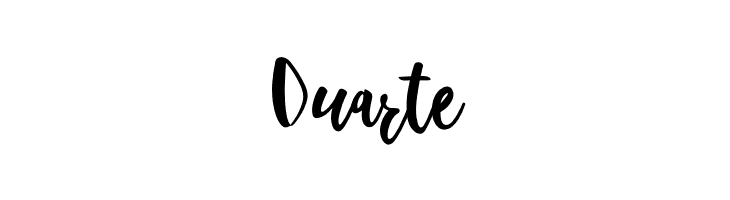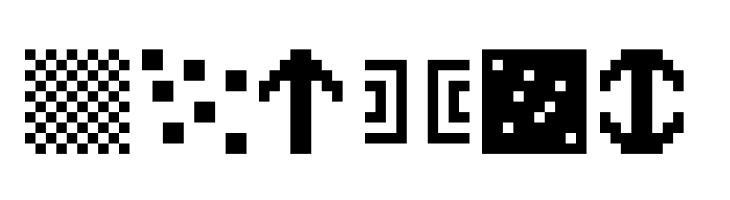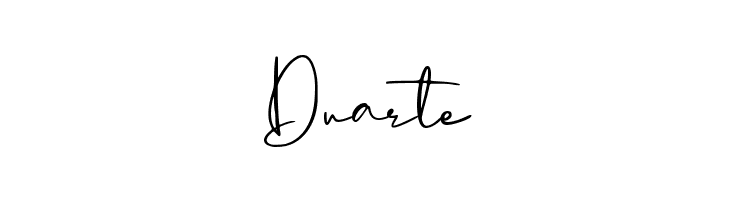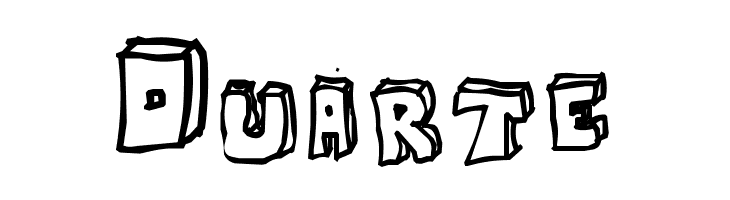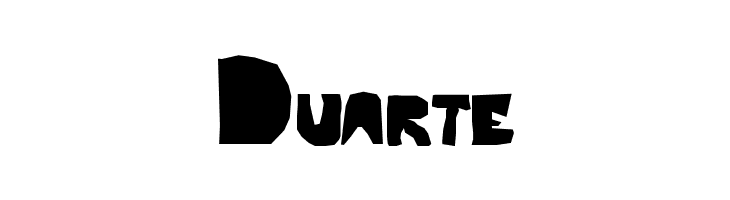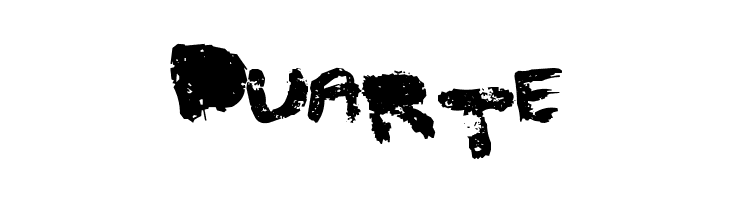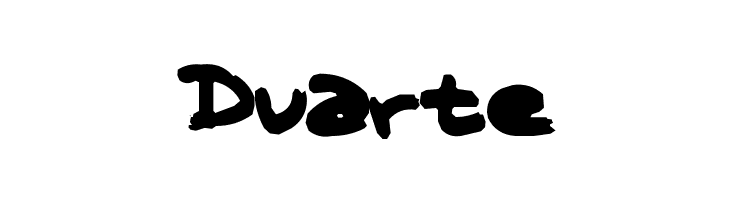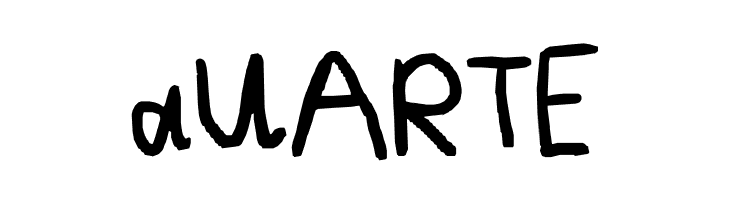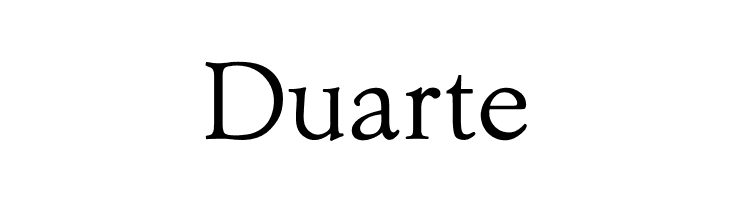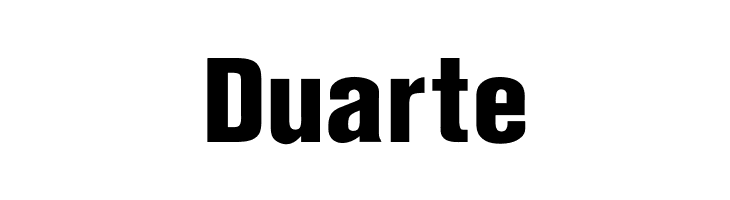
( Fonts by Fonts of Chaos - www.fontsofchaos.com - check the website before use the fonts! ) A bold, modern font with a stencil-like, industrial design. Download 181 Downloads@WebFont
( Fonts by Castcraft Software - opti.netii.net - check the website before use ) A bold, blocky font with high contrast and strong visual impact. Download 1329 Downloads@WebFont
( Fonts by FallenGraphic Studio - Vava Aryanto - Personal-use only. For commercial use please contact owner. ) A playful, elegant handwritten font with modern loops and smooth curves. Download 45 Downloads@WebFont
( Fonts by www.tepidmonkey.net ) A geometric, modern font with clean lines and a structured appearance. Download 225 Downloads@WebFont
( Fonts by Edric Studio www.creativefabrica.com/designer/edricstudio/ - Personal-use only. For commercial use please contact owner. ) A bold, playful script font with flowing, dynamic letterforms. Download 92 Downloads@WebFont
( Fonts by Edric Studio - Personal-use only. For commercial use please contact owner. ) A lively, expressive handwritten font with fluid, dynamic letterforms. Download 46 Downloads@WebFont
( Fonts by Edric Studio - Personal-use only. For commercial use please contact owner. ) A playful, handwritten script font with bold uppercase and fluid lowercase letters. Download 27 Downloads@WebFont
( Fonts by GGBot - www.ggbot.net - Personal-use only. For commercial use please contact owner. ) A bold, playful font with a hand-drawn, irregular style. Download 83 Downloads@WebFont
( Fonts by Castcraft Software - opti.netii.net - check the website before use ) A lively brush-style font with fluid, hand-drawn strokes. Download 1400 Downloads@WebFont
( Fonts by Castcraft Software - opti.netii.net - check the website before use ) A bold, classic serif font with strong, authoritative strokes. Download 1271 Downloads@WebFont
( Fonts by Castcraft Software - opti.netii.net - check the website before use ) A classic serif font with elegant strokes and high contrast, ideal for traditional and sophisticated designs. Download 783 Downloads@WebFont
( Fonts by Castcraft Software - opti.netii.net - check the website before use ) An elegant, italic serif font with classic styling and graceful curves. Download 396 Downloads@WebFont
( Fonts by Castcraft Software - opti.netii.net - check the website before use ) A classic serif font with elegant strokes and balanced proportions. Download 804 Downloads@WebFont
( Fonts by Castcraft Software - opti.netii.net - check the website before use ) A refined, elegant serif font with a light, italic style. Download 282 Downloads@WebFont
( Fonts by Castcraft Software - opti.netii.net - check the website before use ) A classic serif font with sharp serifs and a traditional yet modern aesthetic. Download 737 Downloads@WebFont
( Fonts by Castcraft Software - opti.netii.net - check the website before use ) A bold, modern font with a strong, uniform appearance and slightly condensed width. Download 1952 Downloads@WebFont
( Fonts by Castcraft Software - opti.netii.net - check the website before use ) A bold, geometric font with tall, narrow characters and uniform stroke widths. Download 5492 Downloads@WebFont
( Fonts by Castcraft Software - opti.netii.net - check the website before use ) An elegant script font with flowing, cursive letterforms and intricate flourishes. Download 669 Downloads@WebFont
( Fonts by Castcraft Software - opti.netii.net - check the website before use ) A modern, condensed sans-serif font with uniform stroke width and excellent readability. Download 4946 Downloads@WebFont
( Fonts by Castcraft Software - opti.netii.net - check the website before use ) A modern italic font with clean lines and a sleek, professional appearance. Download 238 Downloads@WebFont
( Fonts by Castcraft Software - opti.netii.net - check the website before use ) A bold, modern font with strong geometric shapes and uniform strokes. Download 4696 Downloads@WebFont
( Fonts by Castcraft Software - opti.netii.net - check the website before use ) A bold, condensed typeface with geometric shapes and uniform strokes. Download 15056 Downloads@WebFont
( Fonts by Castcraft Software - opti.netii.net - check the website before use ) A classic serif font with elegant strokes and refined serifs. Download 1616 Downloads@WebFont
( Fonts by Castcraft Software - opti.netii.net - check the website before use ) A bold, impactful typeface with strong, thick strokes and rounded edges. Download 14609 Downloads@WebFont
( Fonts by Castcraft Software - opti.netii.net - check the website before use ) A bold, italicized font with a strong and dynamic presence. Download 9264 Downloads@WebFont
( Fonts by Castcraft Software - opti.netii.net - check the website before use ) A bold, modern font with strong lines and tight spacing, perfect for impactful designs. Download 11931 Downloads@WebFont
( Fonts by Castcraft Software - opti.netii.net - check the website before use ) A modern, geometric sans-serif font with clean lines and balanced proportions. Download 2051 Downloads@WebFont